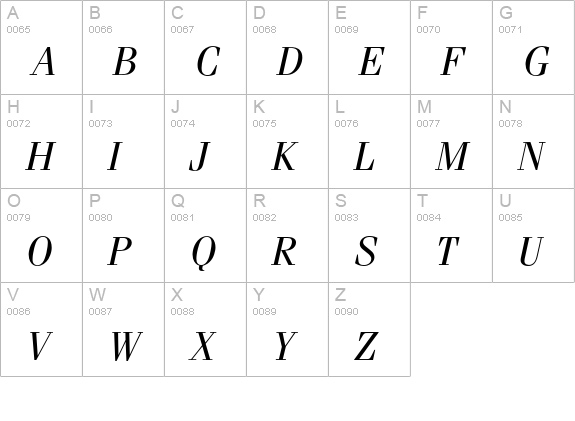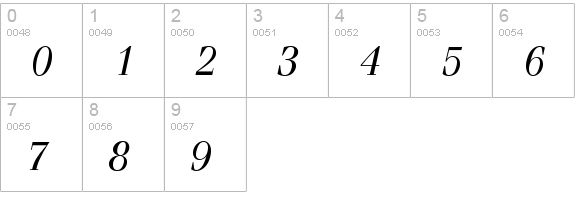
Fenice* Regular Italic Font Details
Fenice* Regular Italic is the standard, neutral, italic variant in the Fenice* typeface family \xE2\x80\x94 well suited to general body text, paragraphs, and standard typographic work.
Fenice* Regular Italic font exudes a sense of elegance and sophistication with its sleek and refined design. The italic style adds a touch of flair and dynamism to any text, making it perfect for projects that require a touch of modernity and style. This font is versatile and can be used for a variety of design projects, from branding to editorial design. Its clean lines and balanced curves make it a timeless choice for both print and digital media. Best of all, Fenice* Regular Italic font is available for free download at FontsMarket.com. Now you can elevate your designs with this beautiful typeface without any cost. Don't miss out on this opportunity to add a touch of sophistication to your projects with Fenice* Regular Italic font.